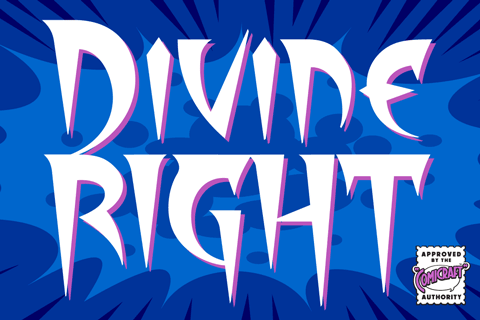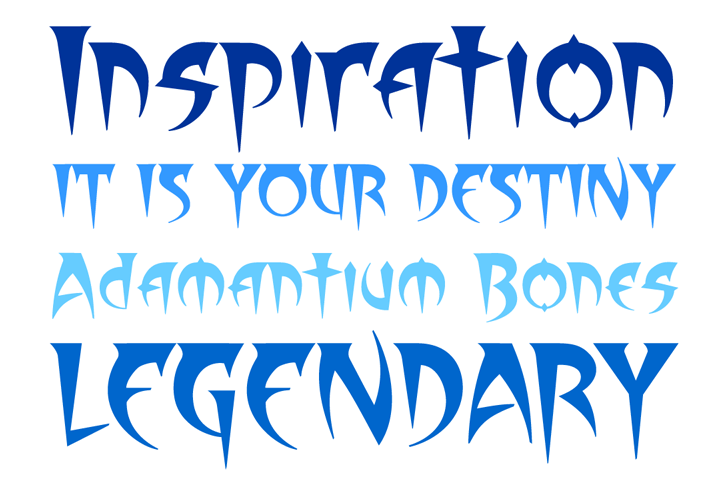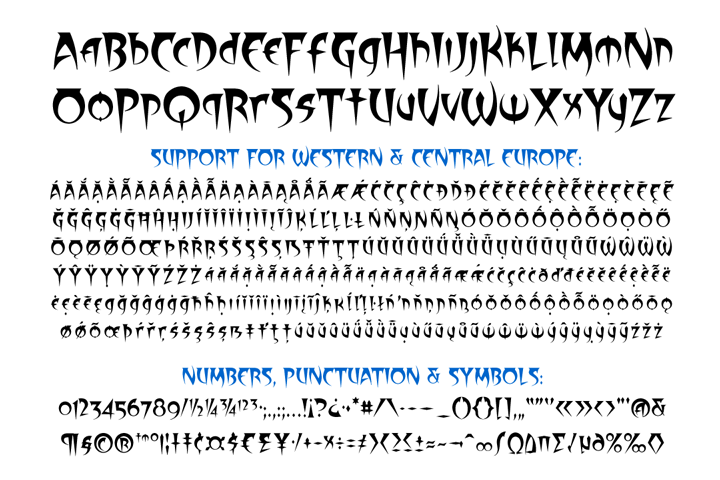
Divine Right
When the Adventures of Max Faraday began in the pages of Wildstorm Comics' DIVINE RIGHT in the mid-'90s, this chapter title font materialized, eventually reappearing on the covers of WOLVERINE.
Delicately crafted by Mister Fontastic himself, John Roshell claims this font was the product of Divine Inspiration. When told he'd been looking at the work of too many French Poster Artists, he dismissed such allegations as Mucha do about nothing.
Single weight with upper & lowercase alphabets